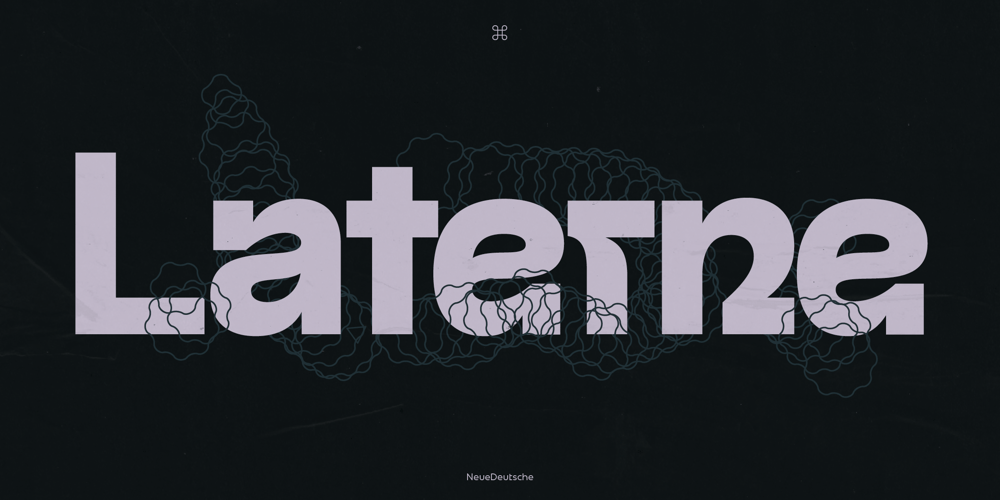
ND Laterne
ND Laterne font
ND Laterne Font Family was designed by Wolf Boese and published by NeueDeutsche. ND Laterne contains 9 styles and family package options. Introducing ND Laterne: a font that masterfully blends the timeless essence of tradition with the sleek aesthetics of modernity. At a first glance, its uppercase letters exude a comforting familiarity, yet upon closer inspection, its lowercase characters unveil a captivating and singular personality. Delicately embracing curves and meticulously sculpted forms, ND Laterne beckons for attention, instilling a profound sense of assurance and empowerment.